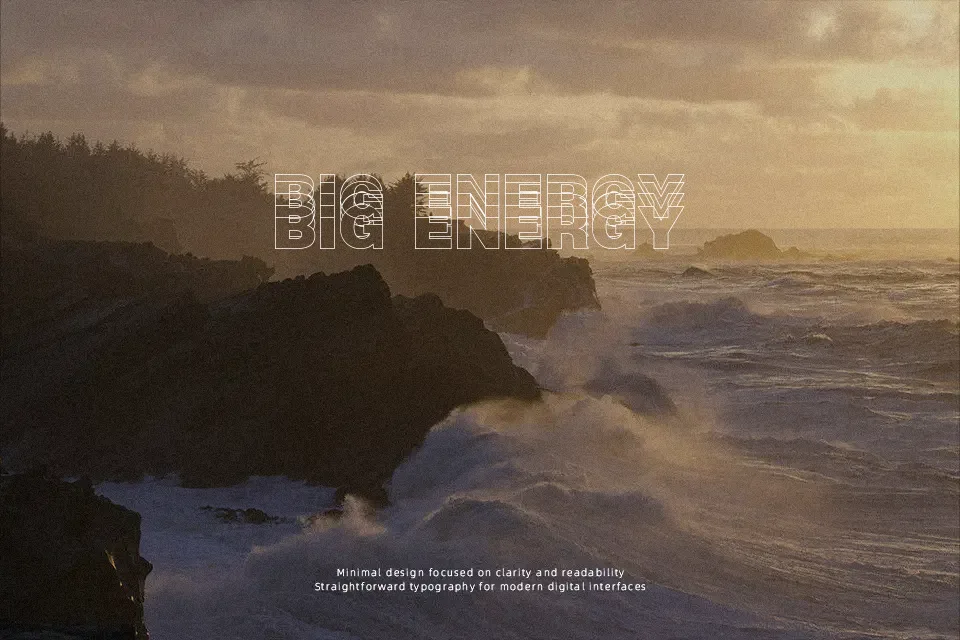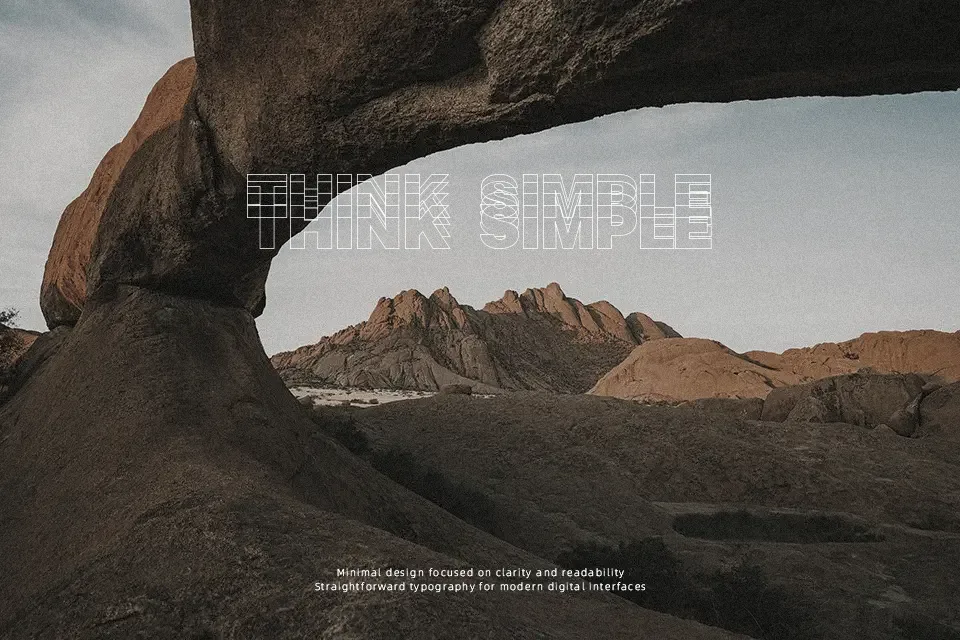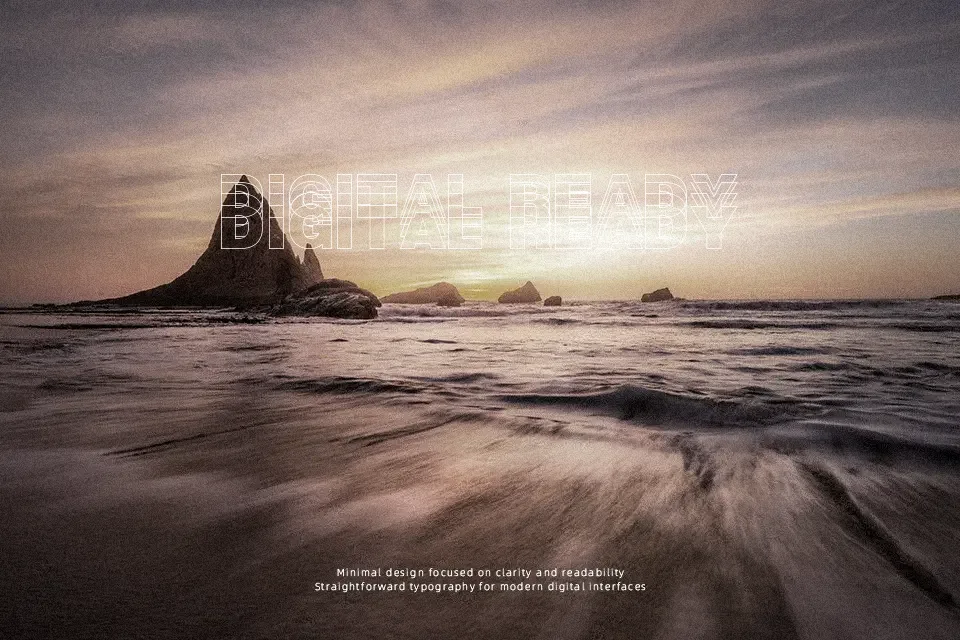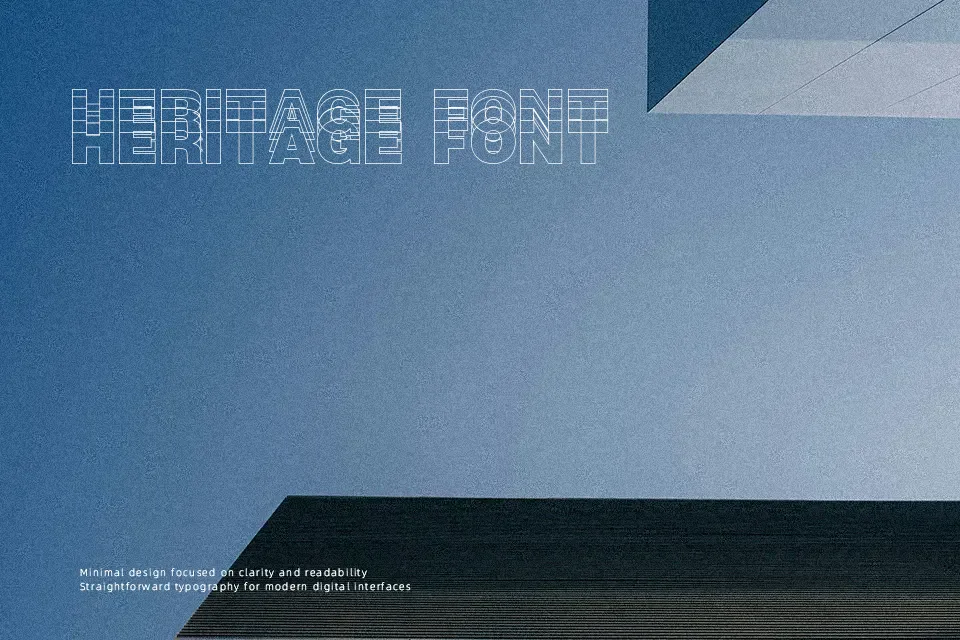
The Modern Chaos Font
The Modern Chaos Font presents an assertive display design constructed from heavy, repeating outlines that overlap to produce visual vibration and dimensional depth. Each uppercase glyph relies on uniform stroke weights and geometric angles, maintaining tight spacing that emphasizes solid block silhouettes in headline compositions. While the dense linear repetition ensures immediate graphic impact at large sizes, small display settings cause the interior lines to blur together. This typeface performs best when displayed at larger sizes where individual contour layers remain sharp, making extended body copy impractical.
Best For: electronic music posters, streetwear apparel graphics, extreme sports branding, festival headline banners
Not Ideal For: continuous body text, mobile interface labels, corporate annual reports, dense editorial layouts